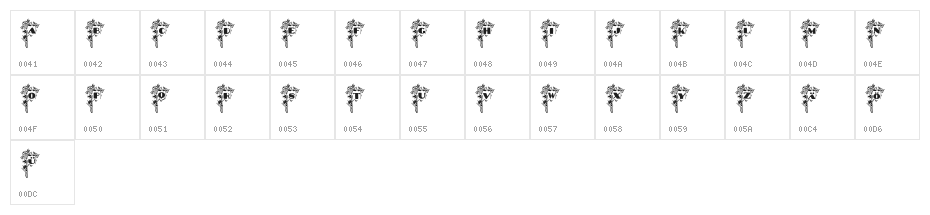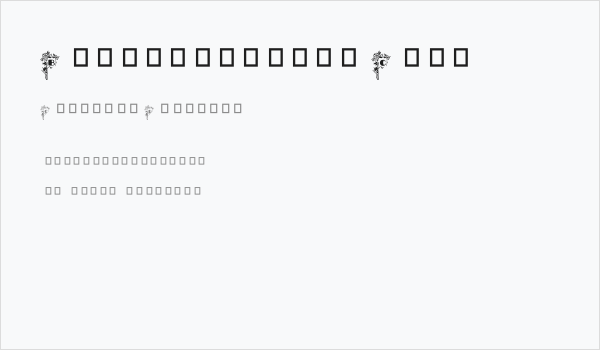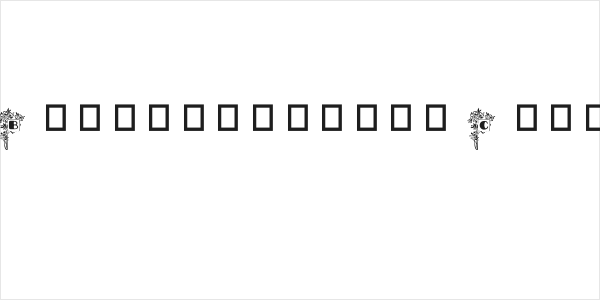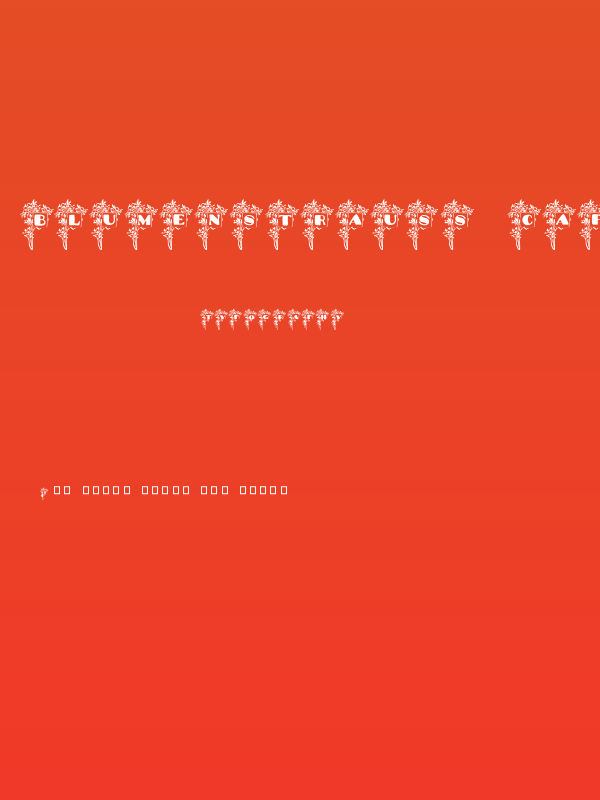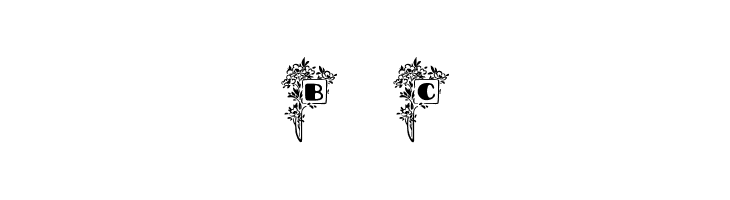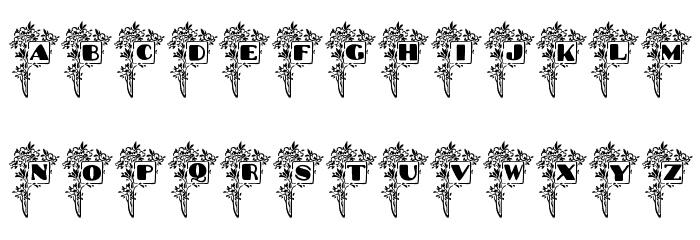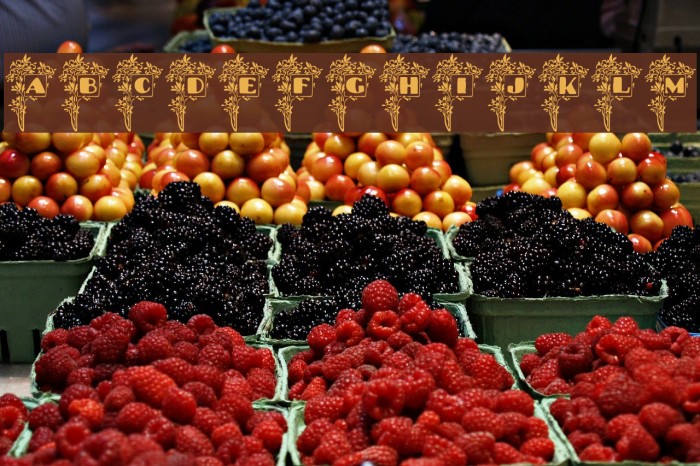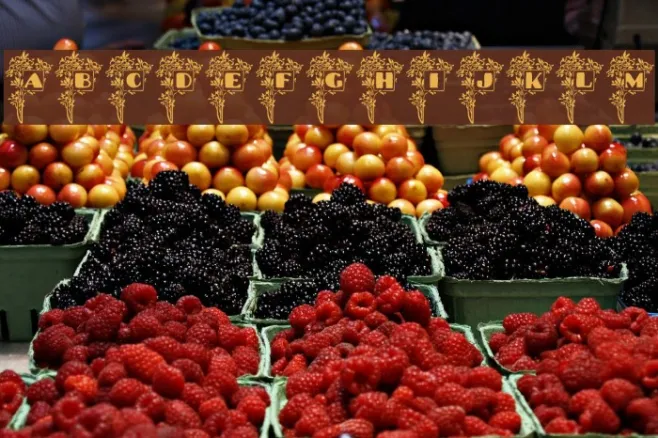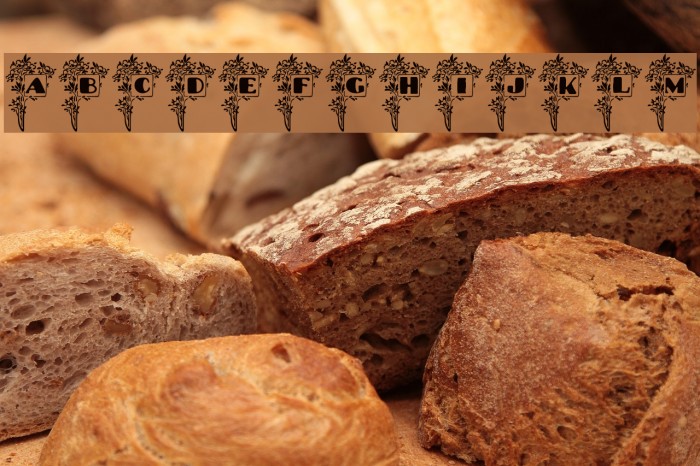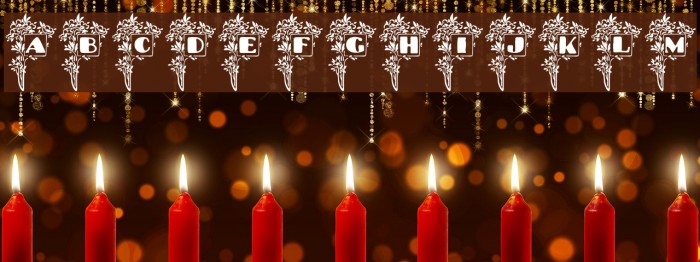
Blumenstrauss Caps Font
Blumenstrauss Caps Description
This decorative font features uppercase letters adorned with intricate floral designs. Each character is encapsulated within a bouquet-like motif, creating a unique and ornate appearance. The floral elements add a touch of elegance and sophistication, making it ideal for projects that require a decorative and artistic flair. The font's design is consistent across all letters, maintaining a cohesive and harmonious look. It is perfect for use in creative projects where a bold and decorative statement is desired.
| Proposed Projects | Ideal for wedding invitations, greeting cards, decorative posters, and artistic branding projects. |